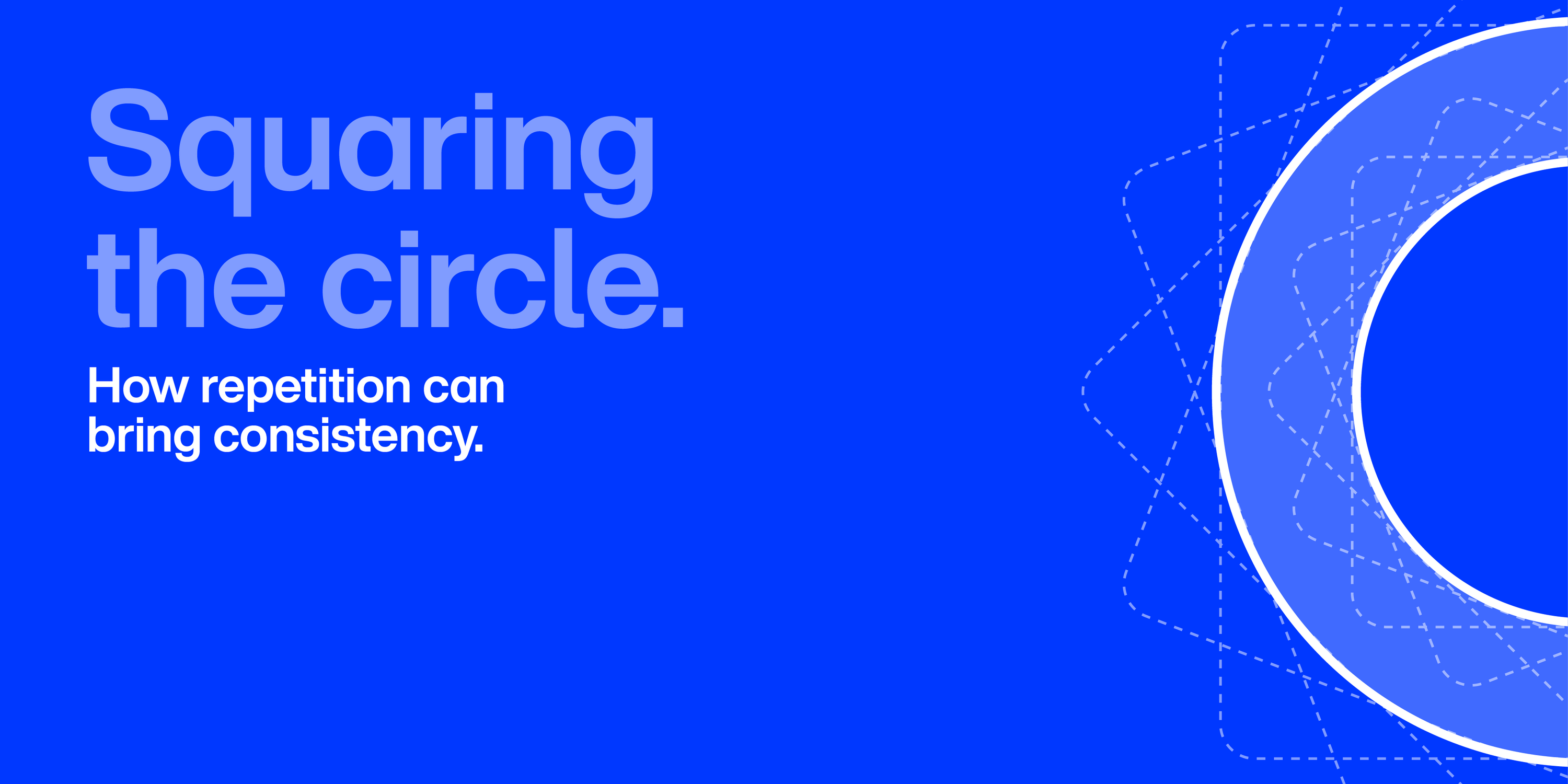
Authenticity at Scale: Why Typography Matters More Than Ever for Enterprise Brands
Blue background, light blue text at left. Title size: "Squaring the circle." White text subtitle: "How repetition can bring consistency." Image of squares overlapping to create a spiked image, forming two white circle outlines.
Authenticity at Scale: Why Typography Matters More Than Ever for Enterprise Brands
As AI accelerates content creation, enterprise brands face a growing challenge: how to remain unmistakably authentic at scale.
Storytelling and voice are still essential to brand authenticity. But in today’s fast-paced content environment, visual signals — processed quickly and subconsciously — play an increasingly vital role.
Among visual signals, typography is more than a decorative asset. Crucially, it builds trust, guiding how people perceive your brand’s credibility and the consistency of its messaging.
Authenticity in the Age of AI-Generated Content
Research in UX and human perception has long shown that users form impressions extremely quickly — often before content is consciously read.
Typography is one of the earliest visual signals processed, shaping perceptions long before meaning is fully absorbed. In an AI-assisted world, that makes typography one of the strongest anchors of authenticity and trust.
With the increased implementation of AI tools to drive creation at scale, a brand’s typographic system ensures the output still belongs to the brand. Distinct, licensed fonts applied consistently act as a watermark of authenticity. They help customers distinguish official, trusted communications from generic or automated content and scams.
The Enterprise Authenticity Problem
Large organizations operate across dozens (or even hundreds) of touchpoints:
• Websites and apps
• Marketing campaigns and social channels
• Investor materials and executive communications
• Customer support interfaces
• Product UIs, dashboards, and documentation
When typography is inconsistent, substituted, or poorly governed across these surfaces, the brand begins to fragment. That fragmentation does not just dilute aesthetics — it erodes credibility.
Customers may not articulate it directly, but they feel when something is off. Inconsistent fonts signal inconsistency of intent. And inconsistency is the enemy of trust.
Distinctiveness Is the First Line of Defense
In crowded markets, brands compete not just on message, but on recognition.
Marketing science has shown that distinctive brand assets drive mental availability for consumers — stimulating the recognition that happens before conscious evaluation. Work on distinctive brand assets by Byron Sharp and Jenni Romaniuk of the Ehrenberg-Bass Institute reinforces that brands win when they are easy to recognize and hard to confuse. A distinct typeface, used consistently, becomes a visual shorthand for the brand itself — even when logos are absent and messaging is brief.
Think about how quickly you can recognize certain global brands from a single word or headline. That recognition is rarely accidental. It is the result of intentional, sustained typographic discipline.
For enterprise brands, distinct and consistent typography becomes a competitive moat.
Consistency Builds Credibility
Consistency is often discussed as a design principle, but in an enterprise context, it is also a governance issue. As legendary graphic designer Paul Rand emphasized, trust is built through repetition and consistency over time — not novelty.
When different teams, regions, or agencies use different fonts (or fallback fonts), customers experience the brand as disjointed. Internally, this often happens gradually: a missing license here, a substituted font there, a platform limitation somewhere else. Externally, the result is immediate.
Consistency in typography communicates:
• Professionalism
• Operational maturity
• Attention to detail
• Reliability
In contrast, inconsistent typography can subtly suggest disorganization or a lack of control — signals no enterprise brand wants to send.
Fonts as a Strategic Brand Asset
For enterprise leaders, typography should be treated with the same rigor as logos, trademarks, and brand voice.
Brand strategists have long argued that strong brands are systems, not one-off expressions. Typography is one of the few elements that spans every layer of that system: marketing, product, operations, and governance.
That means typography must be:
• Clearly defined and systematized
• Accessible across platforms and regions
• Enforced through tools, templates, and workflows
When typography is elevated from an afterthought to a strategic asset, brands gain control — not just over how they look, but over how they are perceived.
The Bottom Line
Authenticity is not declared. It is demonstrated — repeatedly, consistently, and at scale.
In the end, fonts are not just about how a brand looks. They are about whether a brand feels real.